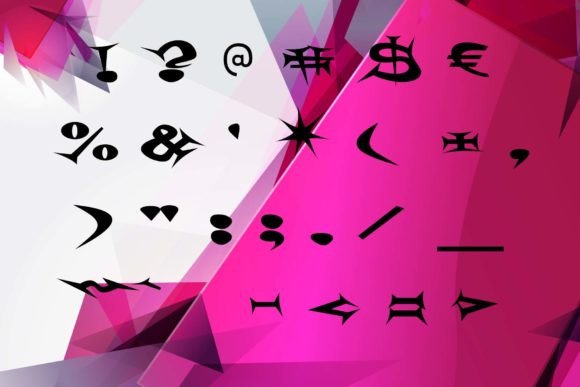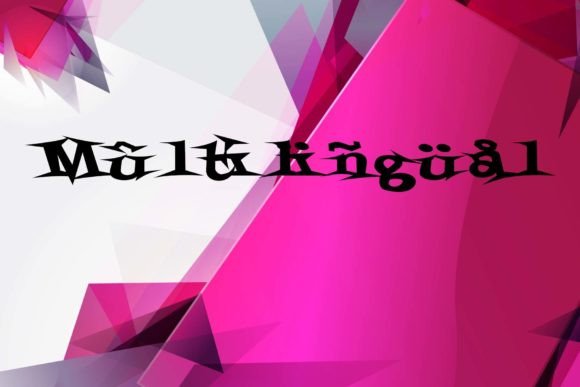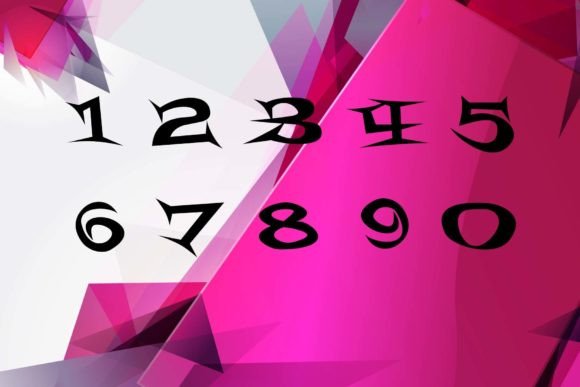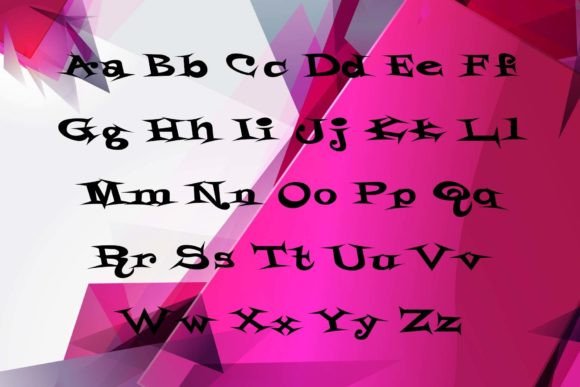
Introduction to Sharp Goth Font
Have you ever been stuck in a design rut, desperately searching for the perfect font to elevate your creative project? I know I have. One day, while browsing through a vintage fashion magazine, I stumbled upon an old-school Goth-inspired aesthetic that left me mesmerized. The bold, edgy typography instantly sparked my imagination, and I knew I had to find a way to bring it back to life.
Enter the Sharp Goth Font, a high-quality display font that’s guaranteed to transport your design to the dark, mystical world of the 90s Goth scene. With its sleek, modern design and transparent background, this font is the ultimate design resource for any creative project looking to make a statement. And the best part? It’s free to download, making it an absolute steal for designers looking to add a touch of sophistication to their work.
Whether you’re working on a fashion campaign, a music album cover, or a dark fantasy novel, the Sharp Goth Font is the perfect addition to your design arsenal. Trust me, once you add it to your projects, you’ll be hooked – and the results will be nothing short of magic.
Key Features of Sharp Goth Font
- High quality, bold and edgy design perfect for creative projects and gothic themes.
- Features a transparent background, making it easy to use with any design or image.
- Available in a range of sizes, from 12pt to 72pt, and is fully scalable to fit any design need.
- Has a high resolution of 300 DPI, ensuring crisp and clear text in any design or print project.
- Unique characteristics include a sharp, angular design and a bold, gothic-inspired aesthetic, making it perfect for adding a touch of darkness and mystery to any creative project.
Honest Review: Sharp Goth Font
As a designer, I’m always on the lookout for unique and high-quality design resources to elevate my creative projects. The Sharp Goth Font is one such find that has caught my attention. I was initially drawn to its edgy and mysterious aesthetic, perfect for those who want to add a touch of darkness to their designs.
Here’s what I like about the Sharp Goth Font: ✨
- High-quality design: The font is well-crafted and has a clear, crisp appearance, even at small sizes.
- Wide character set: The font comes with a wide range of characters, including numbers, punctuation, and special characters.
- Transparent background: This makes it easy to use the font over any background image or color.
However, there are a few limitations: ⚠️
- Limited font weights: The font only comes in a few weights, which might limit its versatility in certain design situations.
- No bold or italic versions: While the font is available in regular and light weights, there’s no bold or italic version to add more emphasis or contrast.
Overall, I think the Sharp Goth Font is a great addition to any designer’s toolkit. While it has its limitations, its unique aesthetic and high-quality design make it a valuable resource for those looking to add a touch of darkness to their creative projects. And the best part? It’s a free download, making it an excellent choice for designers on a budget.
Sharp Goth Font
The Sharp Goth Font is a unique and versatile design resource ideal for creative projects that require a touch of edginess. This high-quality font features intricate details and a transparent background, making it perfect for designers who want to add a professional touch to their work.
Tips for Getting the Most Out of Sharp Goth Font
To get the most out of the Sharp Goth Font, try combining it with other design elements, such as bold lines, bright colors, and intricate patterns. You can also experiment with different font sizes and styles to create a visually striking design.
The Sharp Goth Font is perfect for:
Designing gothic-themed graphics and posters
Creating edgy social media posts and ads
Adding a touch of sophistication to presentations and documents